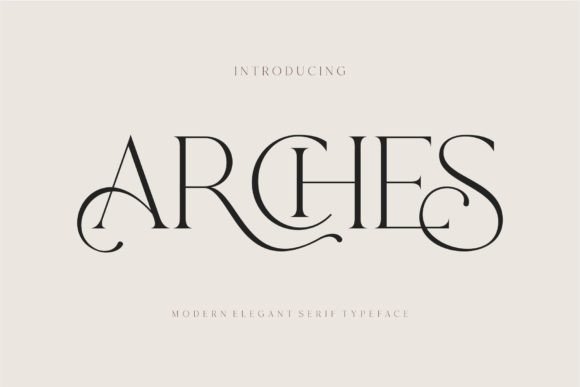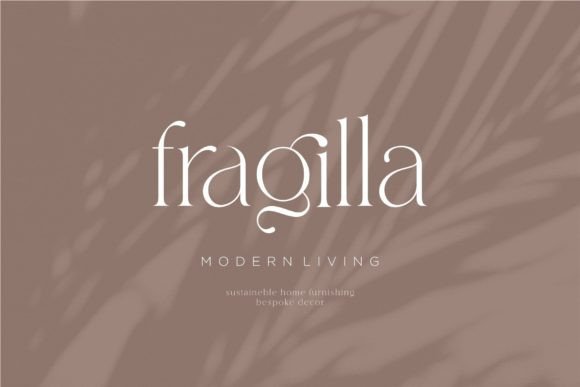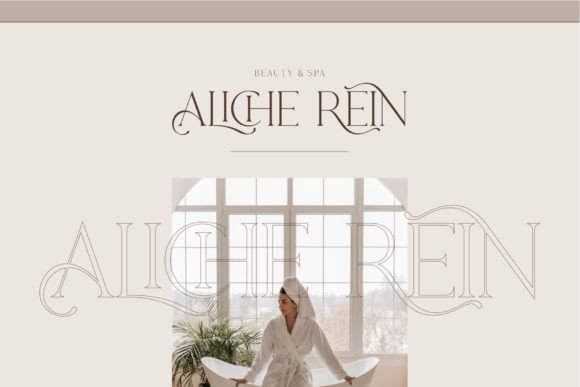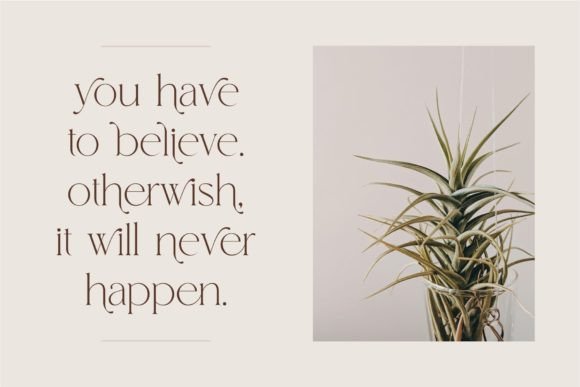
Arches Font: Modern Minimalist Serif for Elegant Logo Design
About the Arches Font
The wait is over! The incredible Arches Font is now available for your design toolkit. **ARCHES Modern Ligature Serif Font** inspired by the famous minimalist logo perfect for the purposes of designing templates, brochures, videos, advertising branding, logos, invitations, layout design, elegant crafting, beauty design and more.
Arches excels in headline use, short-form text within logos and branding materials, and elegant invitations. Its ligatures add sophistication to concise messaging, making it ideal for packaging design or short-form advertising. However, its refined serifs and ligatures make it less suitable for body text or UI elements requiring high readability in extended passages.
The font’s personality is sophisticated and modern, with a touch of elegance. It is best suited for brands projecting a high-end or minimalist aesthetic, perhaps in fashion, beauty, or luxury goods.
For optimal pairings, consider pairing Arches with a clean sans-serif like Montserrat for body text, or a geometric sans-serif such as Futura for a more contemporary feel. A contrasting script font, such as Allura, could add a touch of handwritten elegance to selected design elements.
Arches Font Usage Examples
Arches Font Example